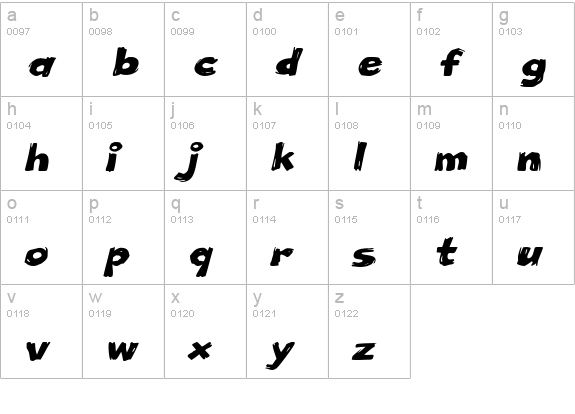
Little Piggy BTN Wide Oblique Font Details
Little Piggy BTN Wide Oblique is a distinctive, extended-width, italic variant in the Little typeface family \xE2\x80\x94 well suited to design and typography projects.
Little Piggy BTN Wide Oblique font is a playful and charming typeface that exudes a sense of whimsy and fun. With its wide and slanted design, this font adds a unique and dynamic touch to any project. Perfect for children's books, invitations, and branding materials, Little Piggy BTN Wide Oblique is sure to make a statement. Best of all, this font is available for free download at FontsMarket.com. Whether you're a designer looking to add a touch of personality to your work or someone simply looking for a fun and eye-catching font, Little Piggy BTN Wide Oblique is the perfect choice. Download it today and let your creativity soar!